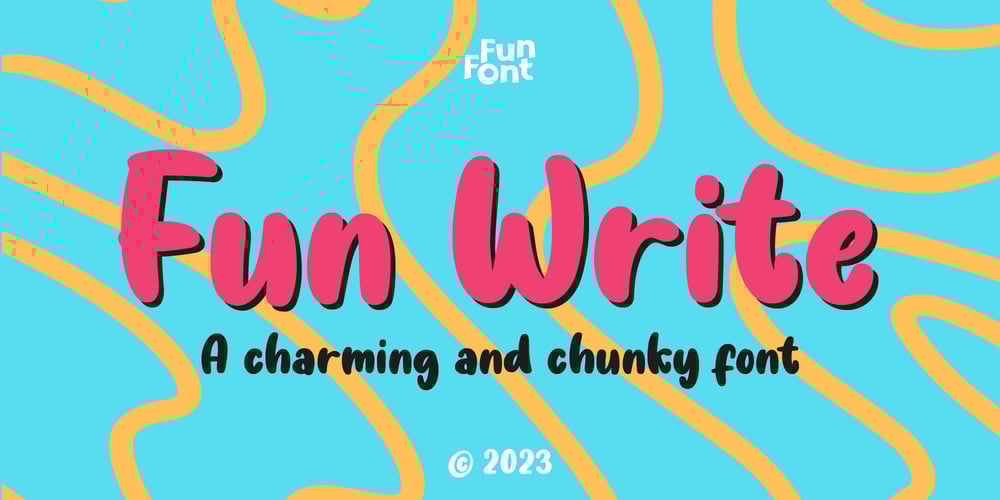
Fun Write Font Family was designed by Nur Syamsi, Bustanul Arifin and published by FunFont. Fun Write contains 2 styles and family package options. Fun Write is a font characterized by a playful and enjoyable nature, much like letters inscribed with full-hearted merriment, as implied by its name.With its simple and naive font structure, rounded edges, and an absence of sharp angles, it eschews the pointed facets typical of expressive marker strokes.This font is exceptionally well-suited for your design projects requiring a whimsical and delightful character reminiscent of a child’s world